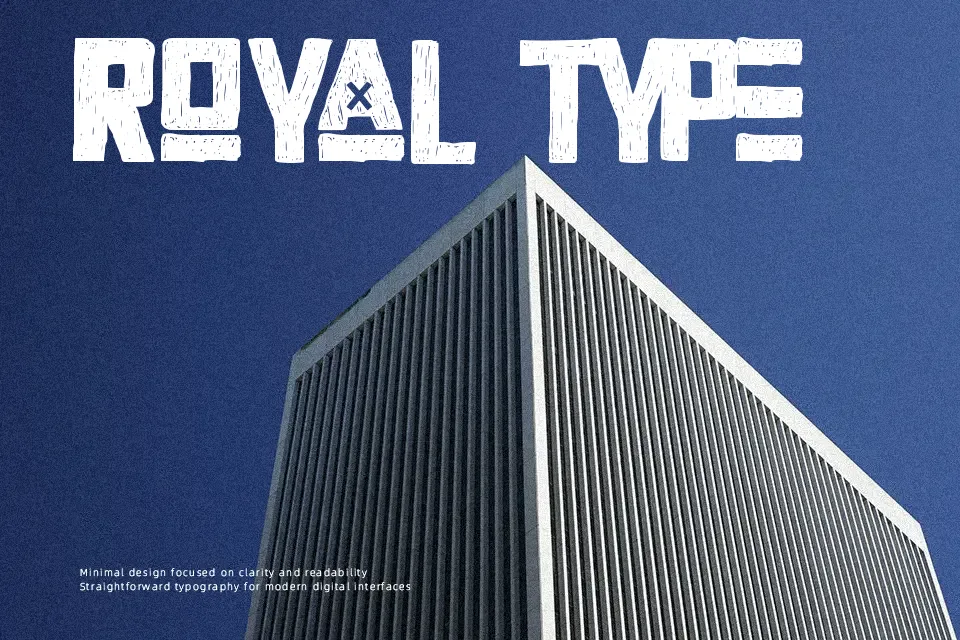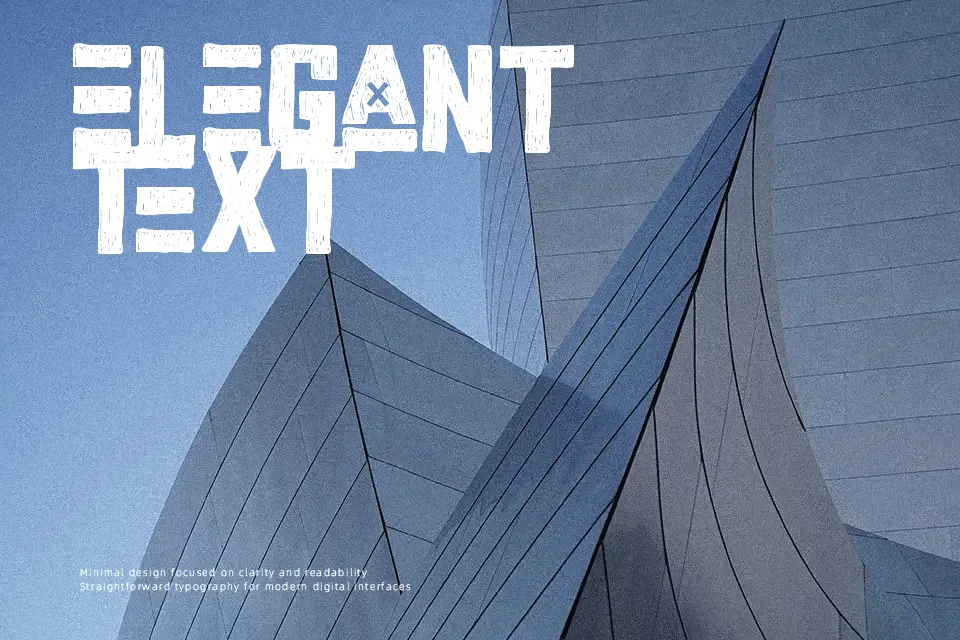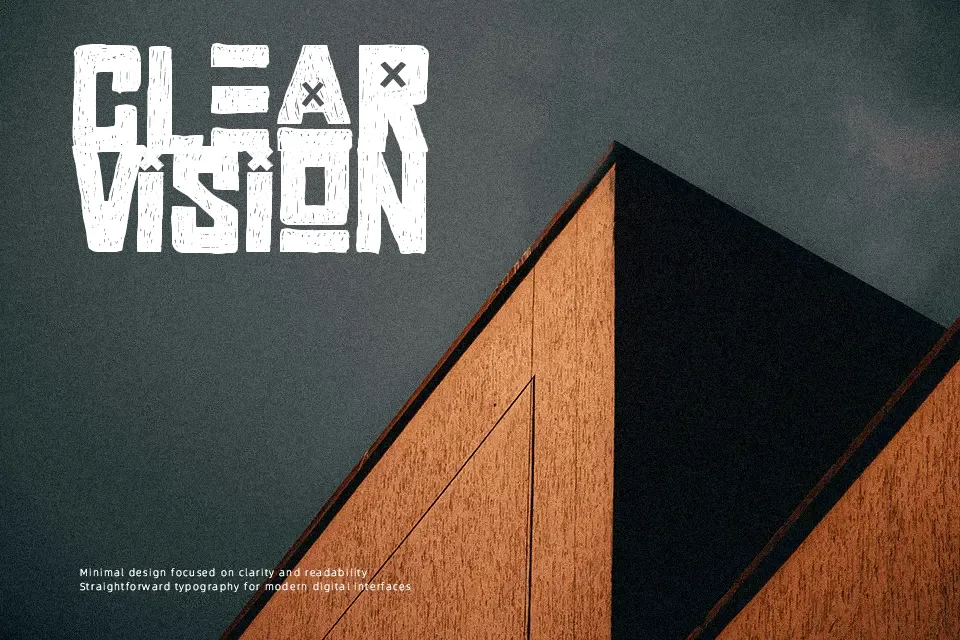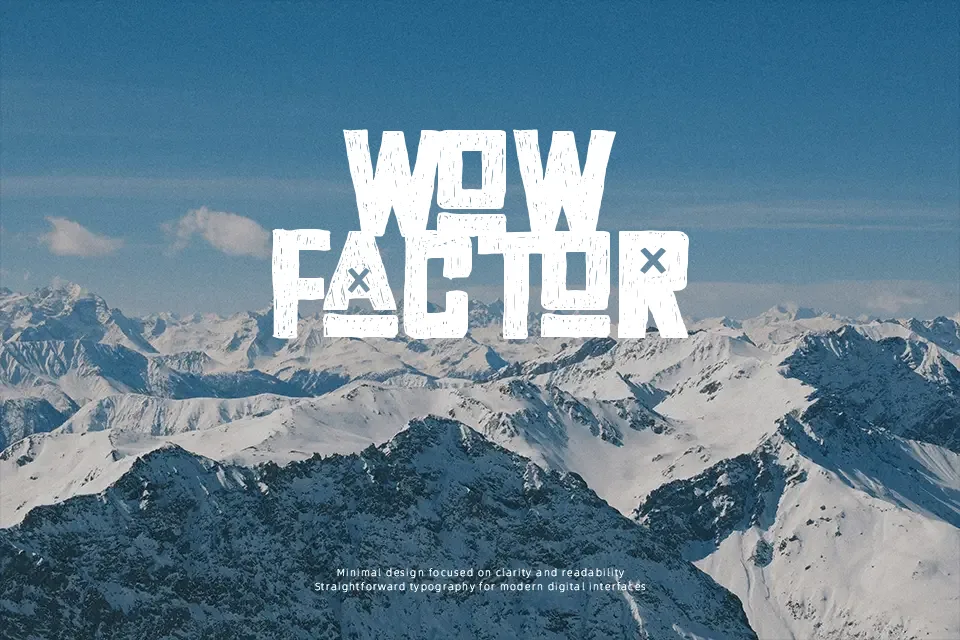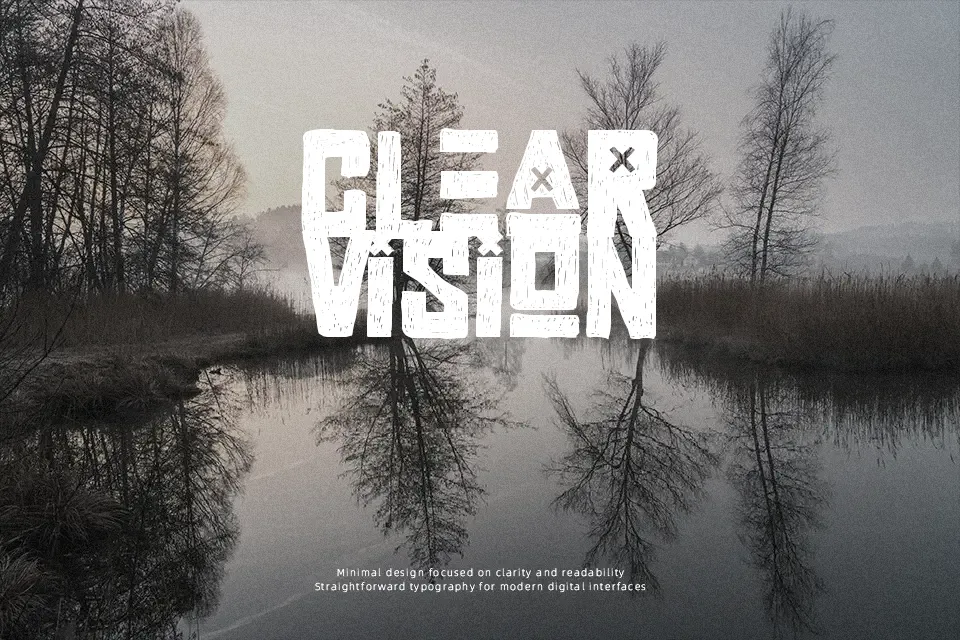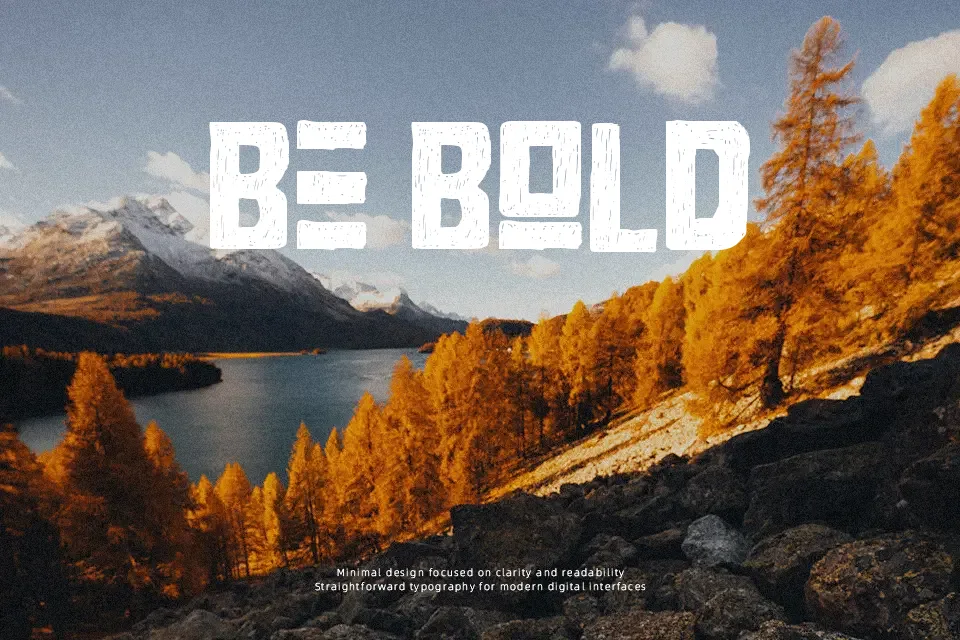
Rocker Squad Font
Rocker Squad Font is a thick-lettered display typeface that commands attention with its bold, semi-condensed hand-drawn strokes. The letterforms are characterized by an energetic street art aesthetic, featuring tight spacing that keeps large typographic arrangements looking cohesive and impactful. The heavy weight and dynamic textures naturally lend themselves to expressive layouts, making the design particularly effective for striking headlines. While the dense strokes improve visibility in prominent poster layouts and apparel graphics, these same thick forms reduce comfort during extended reading. Consequently, the typeface is less suitable for long paragraphs or small-scale print materials, thriving best when used as a central focal point in urban-inspired branding and sportswear.
sportswear apparel graphics
urban streetwear branding
dynamic team logos
detailed corporate reports
Perfect for branding, fashion, and logo, with a bold and display style.